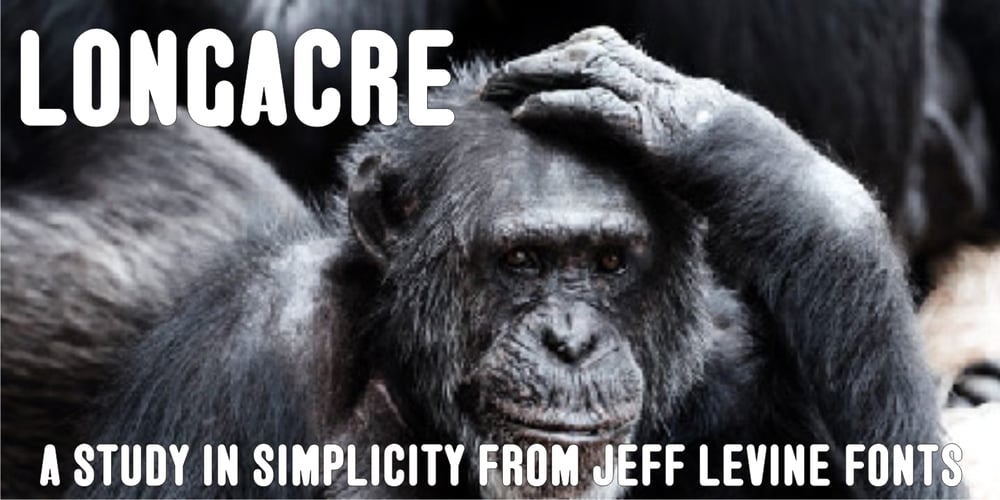
Longacre JNL Font Family was designed by Jeff Levine and published by Jeff Levine. Longacre JNL contains 1 styles and family package options. Longacre JNL is bold. It’s condensed. It has rounded ends. The design is both eye-catching and casual; perfect for titling that needs to make a point without being overwhelming. Based on a set of wood type, this design also offers an inference of child-like simplicity, as it is very similar to the type of lettering found on classroom bulleting boards.